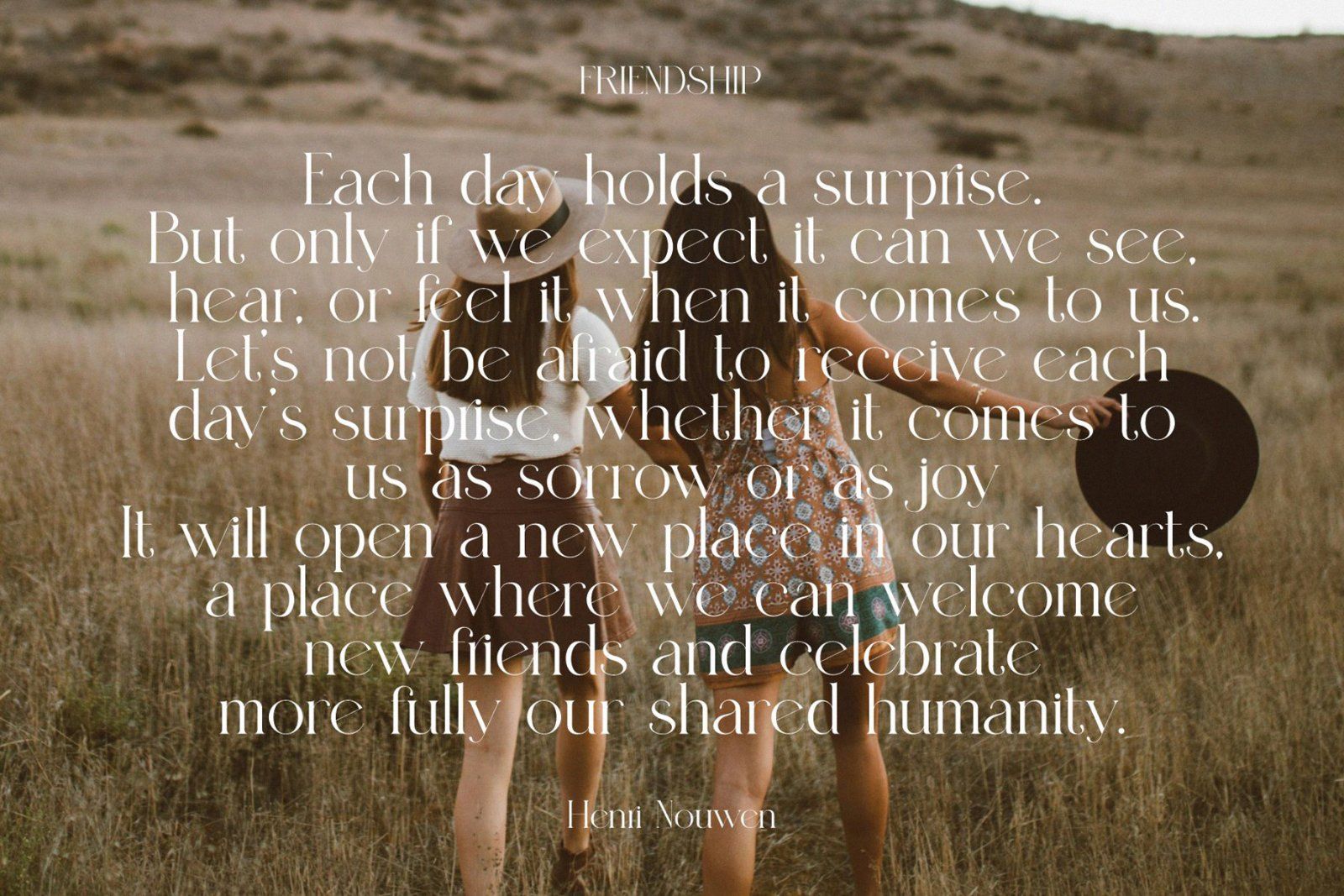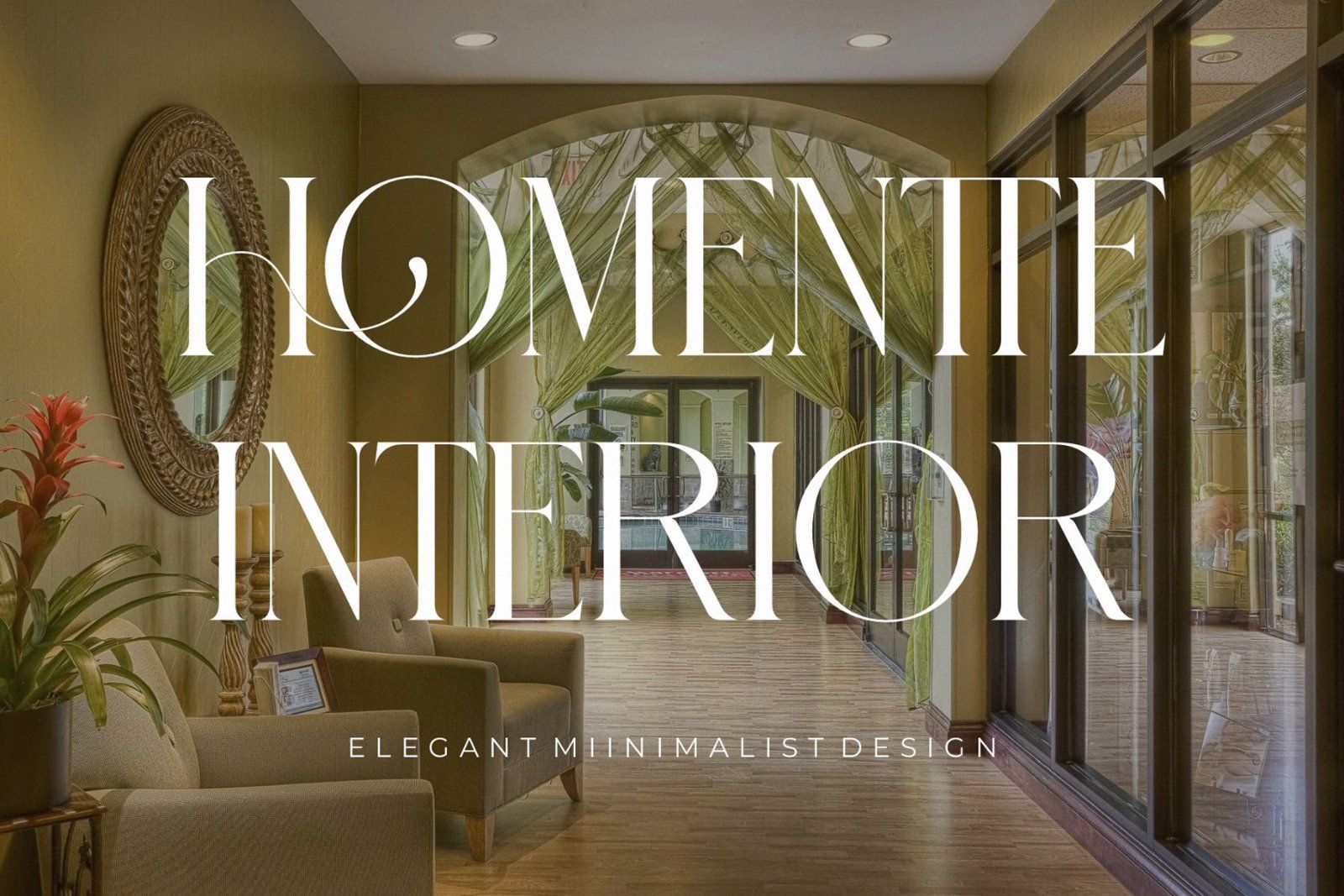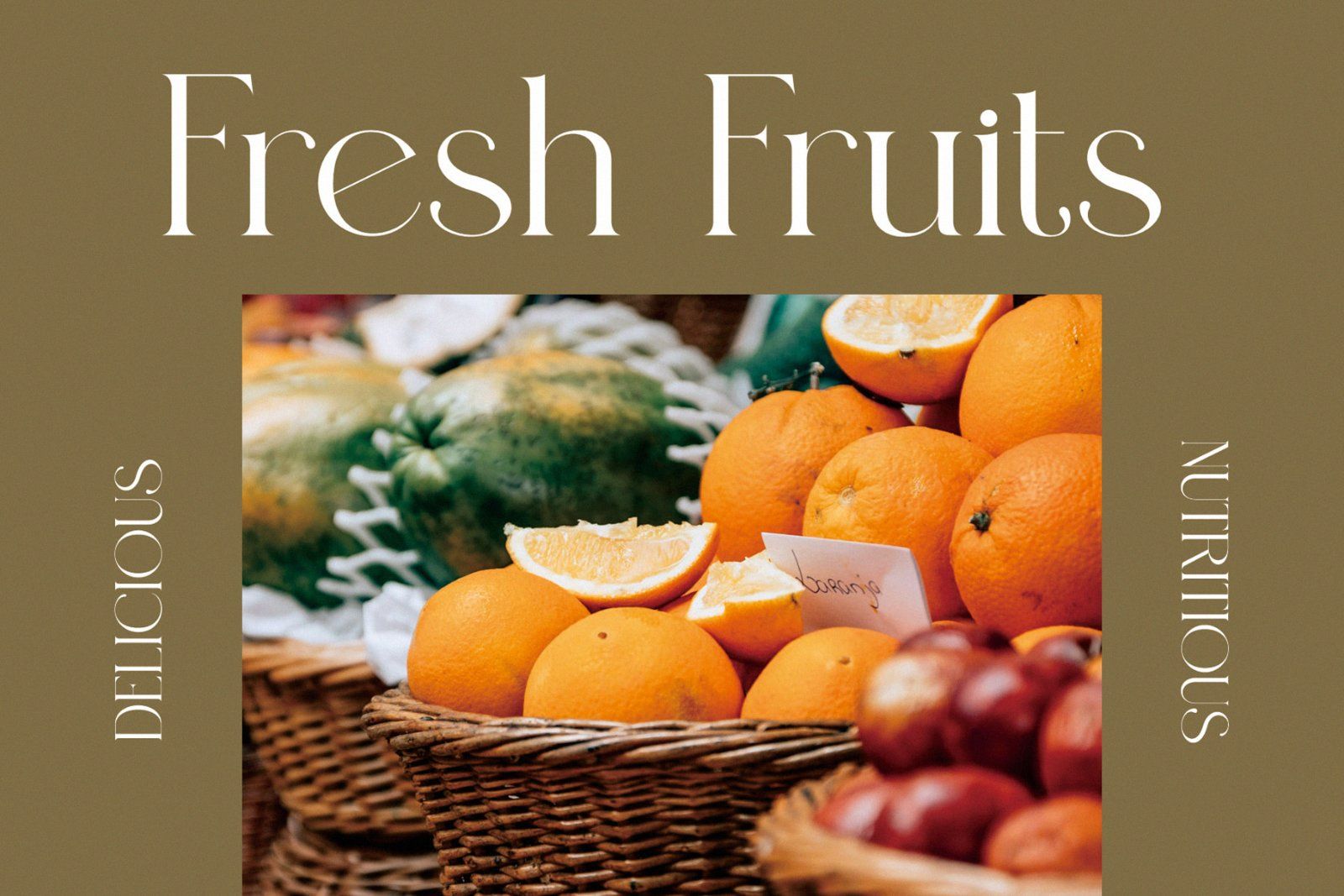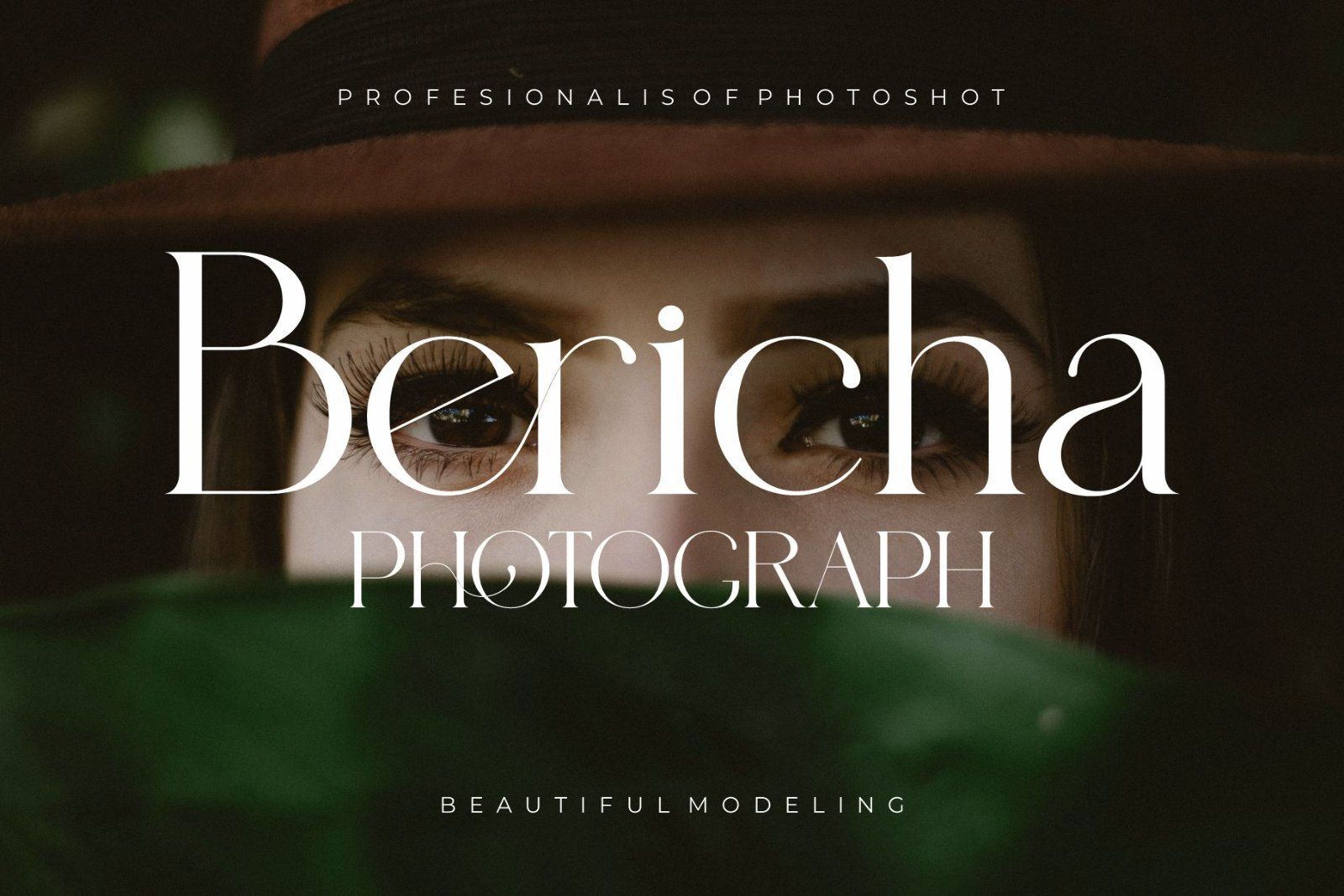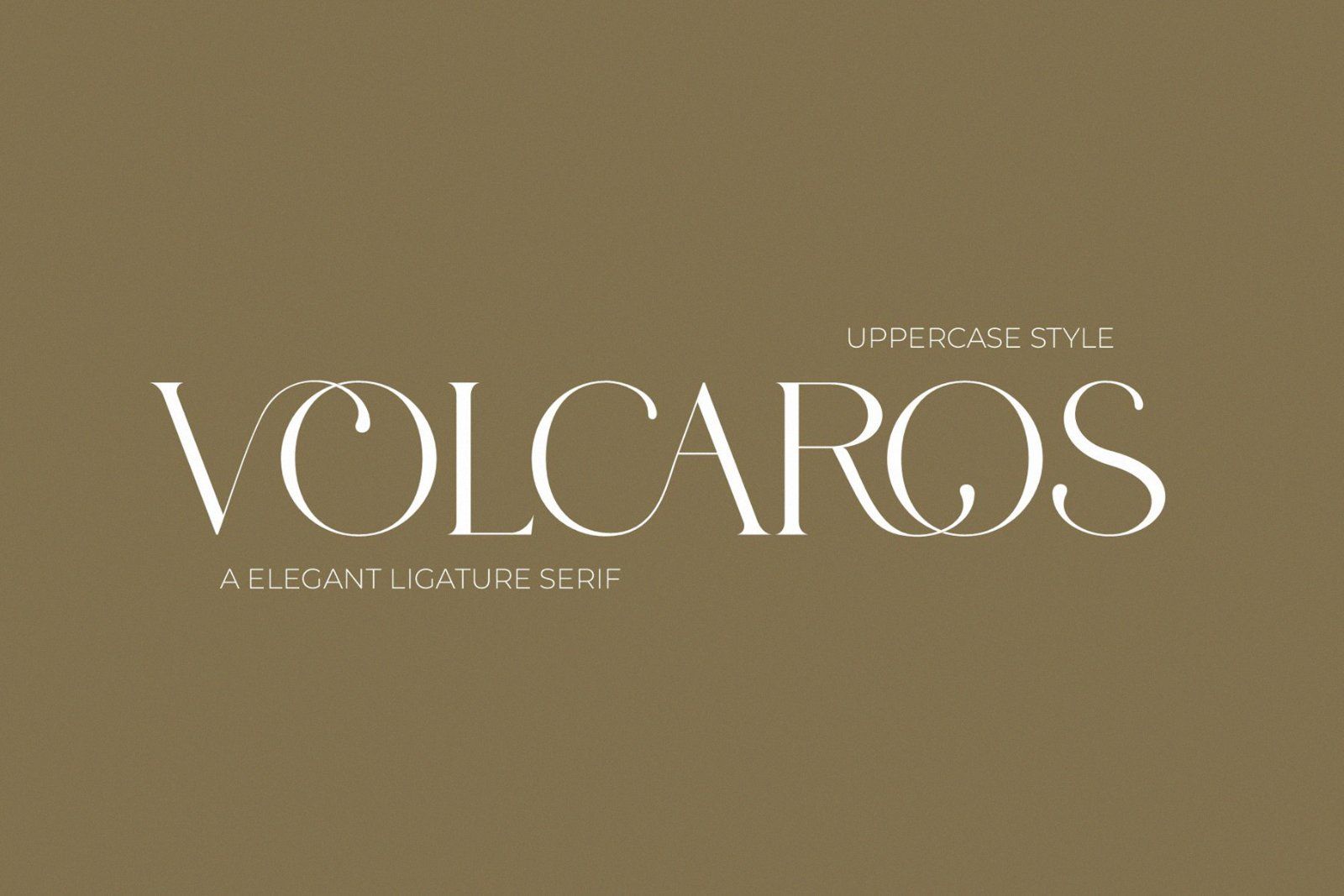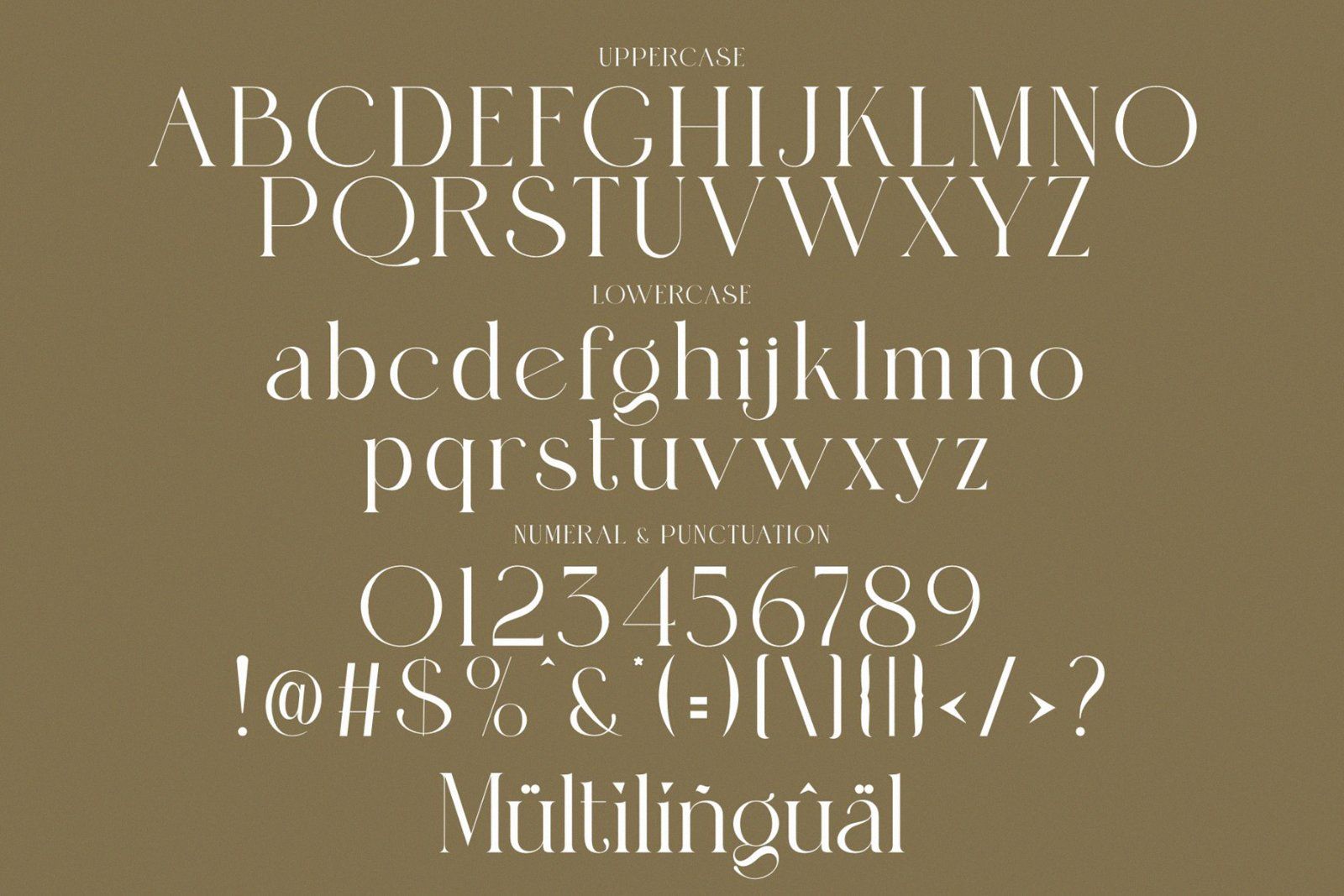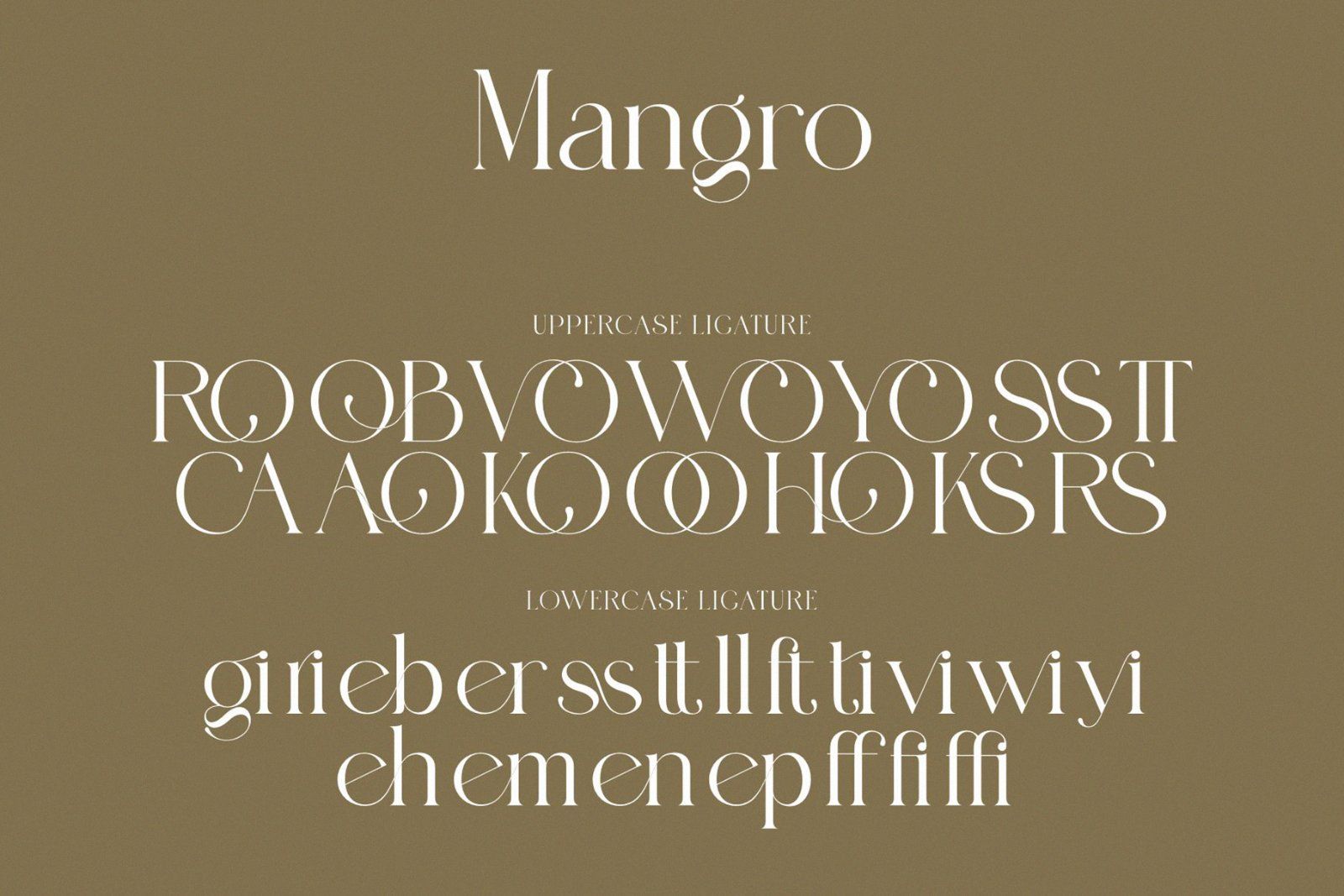
Mangro Modern and Elegant Serif Typeface inspired by the famous minimalist logo perfect for the purposes of designing templates, brochures, videos, advertising branding, logos, invitation, layout design, elegant crafting, beauty design and other
• Standard glyphs
• International Accent